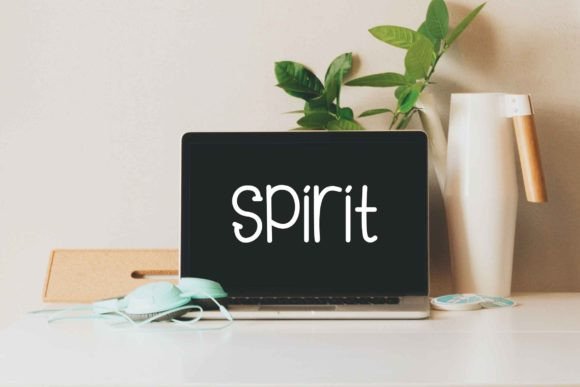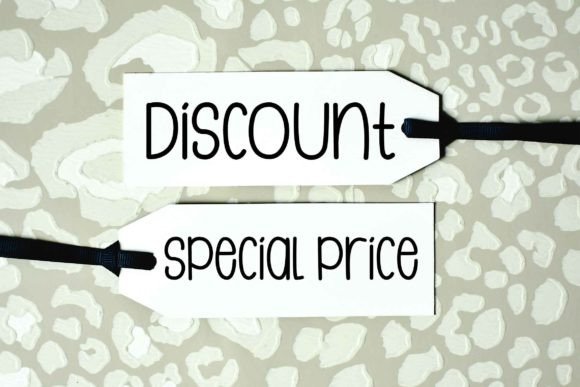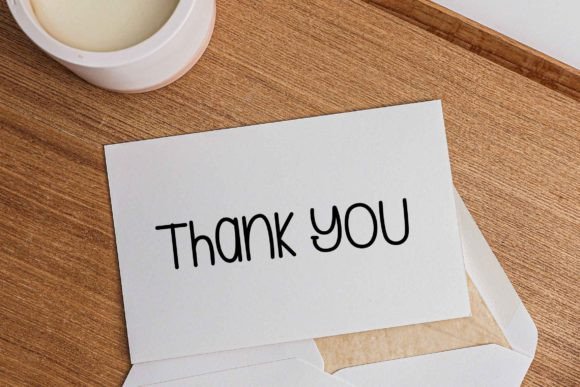
Discover the Charm of Bestfriend Font: A Simple yet Captivating Handwritten Style
Are you on the hunt for a font that exudes a sense of warmth and friendliness? Look no further than the Bestfriend Font, a delightful handwritten style that is sure to capture your heart. This lovely font is characterized by its simplicity, cuteness, and versatility, making it an excellent addition to any design project. In this article, we’ll explore the features and benefits of Bestfriend Font, and how it can elevate your designs, from social media greeting cards to crafts, t-shirts, and more.
The Allure of Bestfriend Font
Bestfriend Font is a beautifully crafted handwritten font that boasts a unique blend of simplicity and charm. Its cute style is sure to make you fall in love at first sight, and its versatility makes it suitable for both formal and non-formal designs. Whether you’re a designer, crafter, or simply a DIY enthusiast, this font has the potential to become your new favorite.
Key Features of Bestfriend Font
- Handwritten style: Bestfriend Font features a genuine handwritten style that adds a personal touch to any design.
- Simple and cute: The font’s simplicity and cuteness make it perfect for a wide range of design applications.
- Versatile: Bestfriend Font can be used for both formal and non-formal designs, making it an excellent addition to your font library.
- Easy to read: The font’s clear and legible design ensures that your text is easy to read, even at smaller sizes.
Creative Uses for Bestfriend Font
Bestfriend Font is an incredibly versatile font that can be used in a variety of creative projects. Here are some ideas to get you started:
- Social media greeting cards: Create personalized greeting cards for special occasions, such as birthdays, holidays, or anniversaries.
- Crafts: Use Bestfriend Font to add a personal touch to your craft projects, such as scrapbooking, journaling, or card making.
- T-shirts and apparel: Design custom t-shirts, hoodies, or other apparel items with Bestfriend Font for a unique and stylish look.
- Stationery and invitations: Use Bestfriend Font to create beautiful stationery, invitations, or party decorations.
Why Choose Bestfriend Font?
With so many fonts available, why choose Bestfriend Font? Here are just a few reasons why this font stands out:
- Unique style: Bestfriend Font offers a distinctive handwritten style that sets it apart from other fonts.
- Ease of use: The font is easy to read and works well in a variety of design applications.
- Emotional connection: Bestfriend Font’s cute and playful style is sure to evoke an emotional response, making it perfect for designs that require a personal touch.
In conclusion, Bestfriend Font is a charming handwritten font that is sure to capture your heart. Its simplicity, cuteness, and versatility make it an excellent addition to any design project. Whether you’re a designer, crafter, or DIY enthusiast, this font has the potential to become your new favorite. So why wait? Discover the charm of Bestfriend Font today and take your designs to the next level!
Get ready to fall in love with Bestfriend Font – a simple yet captivating handwritten style that’s sure to become your best friend in the world of design!